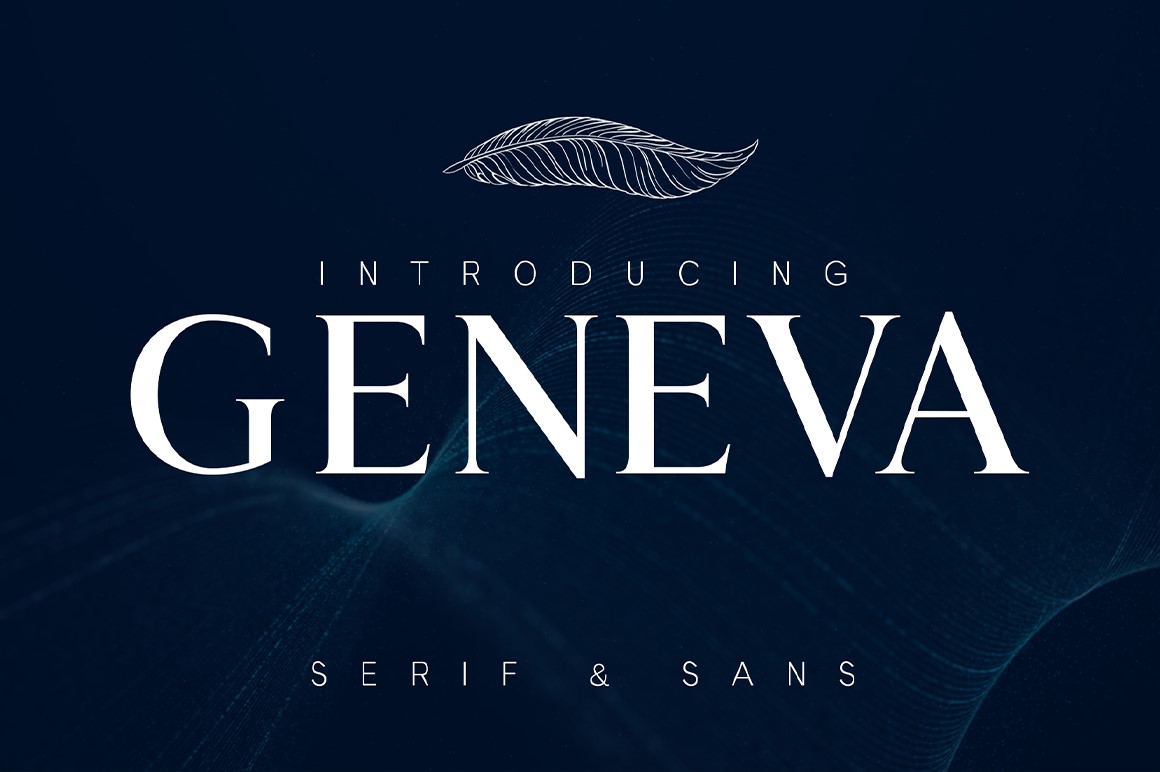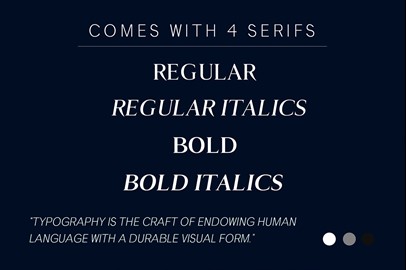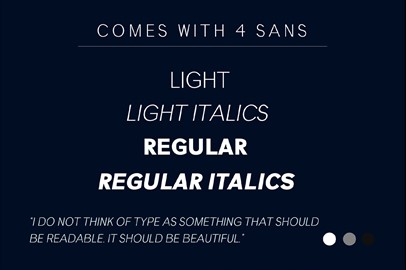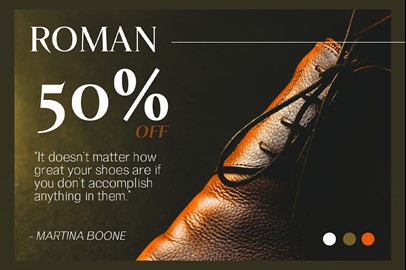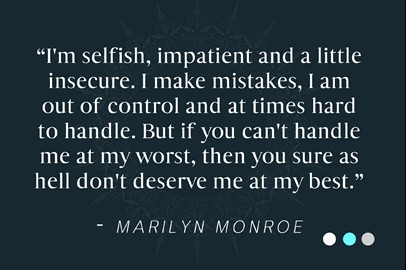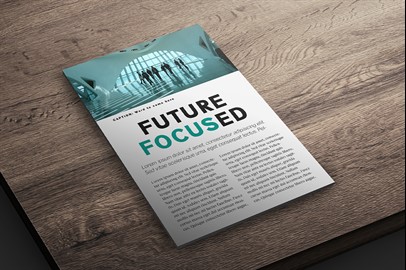
GENEVA Typeface - A family of 8 fonts
An elegant family of 8 fonts.
Geneva
is a modern serif and sans font pairing that perfectly compliments each other. With both masculine and feminine qualities; this font is perfect for your next project and an essential digital asset to own.
Geneva comes with upper and lowercase, basic characters, numbers, marks, and punctuation as well as special characters